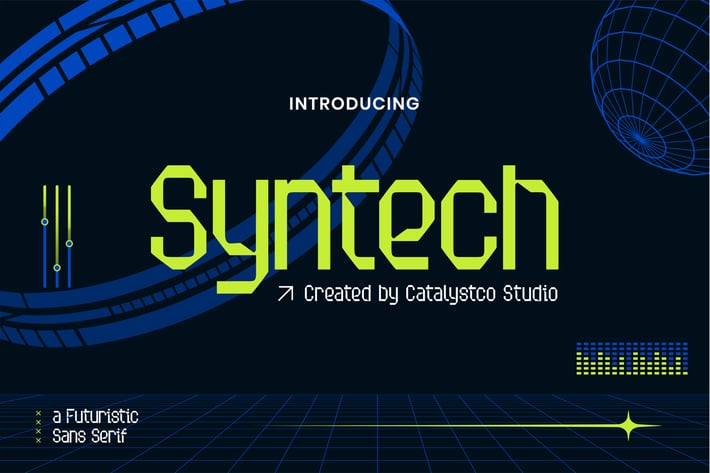
Syntech Futuristic Sans Serif Font
Syntech Futuristic Sans Serif Font is a cutting-edge futuristic sans serif font built for high-impact visuals in sci-fi, gaming, and technology fonts. Its sharp angles and modular shapes reflect a digital and cyber-inspired aesthetic, ideal for UI, esports branding, posters, or tech font projects. With its geometric construction and modern, digital vibe, Syntech brings a unique energy to futuristic titles, space font layouts, or technology logo applications. Clean and powerful, this typeface works great in both print and screen, delivering sleek, modern bold results.
Main Features
Ligatures & Alternate
Numeral & Punctuations